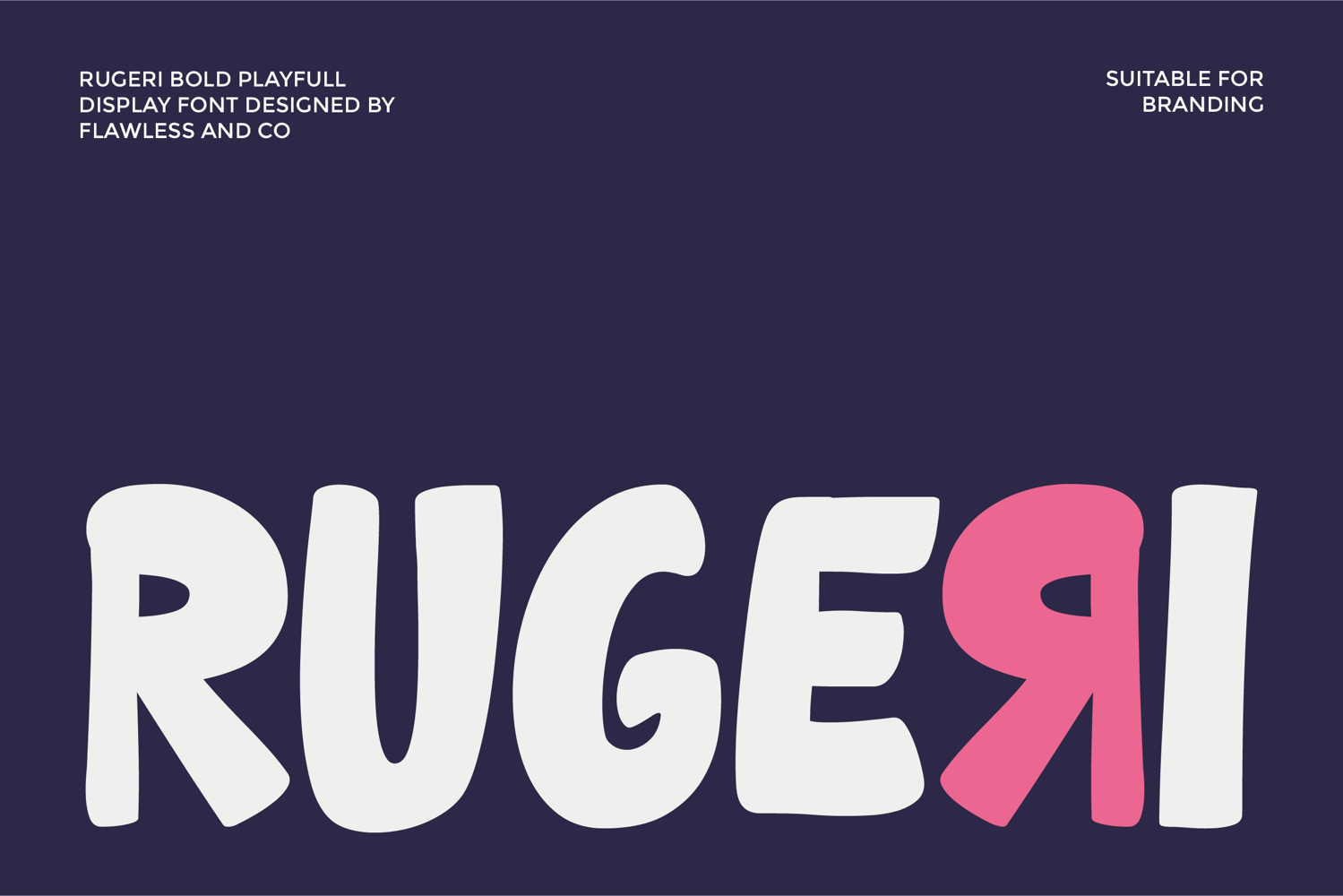
Rugeri
RUGERI
Rugeri - Bold Playful Display Font
Rugeri is a bold playful display font designed to make a strong and cheerful visual statement. With its chunky letterforms, rounded edges, and expressive shapes, Rugeri delivers a fun yet confident look that instantly captures attention.
• Alternates & Ligatures
Who Should Use Rugeri?
Rugeri is ideal for designers, brand creators, and creative studios looking for a font that feels fun, friendly, and impactful. It works perfectly for brands that want to stand out with a bold and approachable identity.
A Must-Have Font for Brand and Logo Creators and Designers
Rugeri is a must-have font for brand and logo creators who want eye-catching typography with a playful twist. Its bold structure makes logos memorable, while its smooth curves keep the design friendly and modern.
Suitable for:
• Branding and logo design
• Posters and headlines
• Packaging design
• Merchandise and apparel
• Social media graphics
• Advertising and promotions
• Creative projects and illustrations